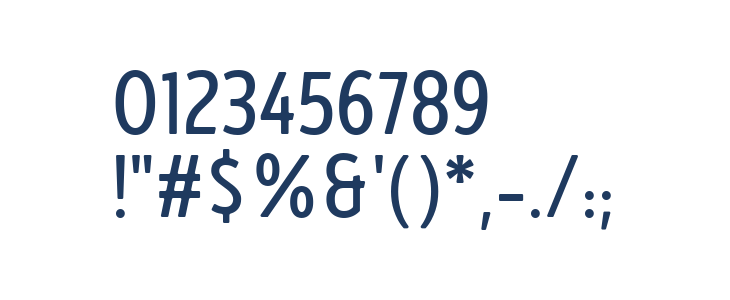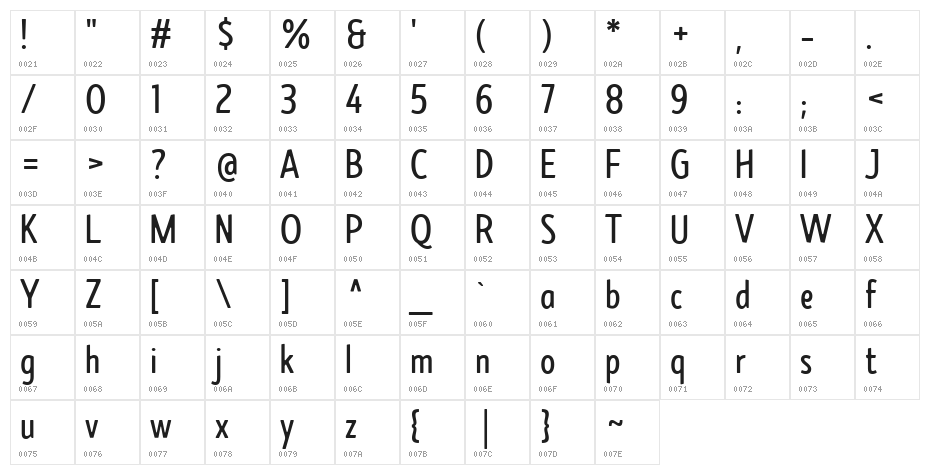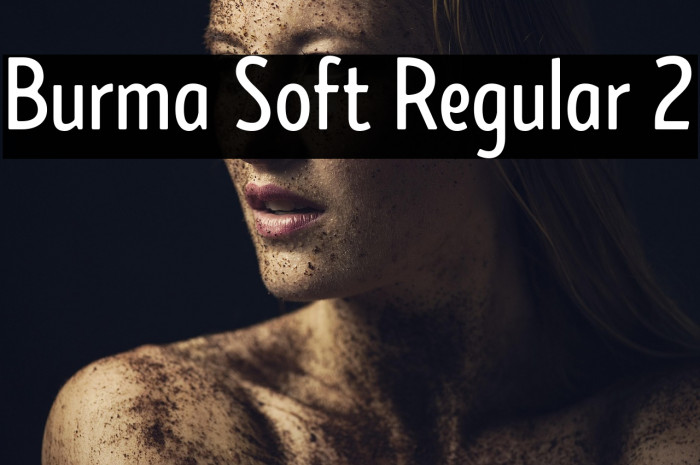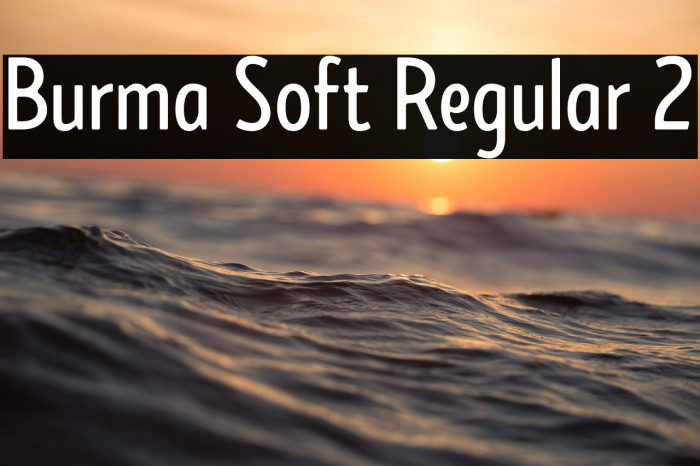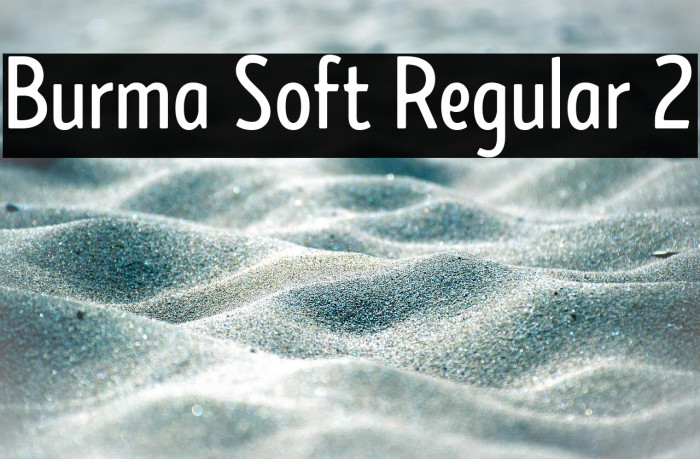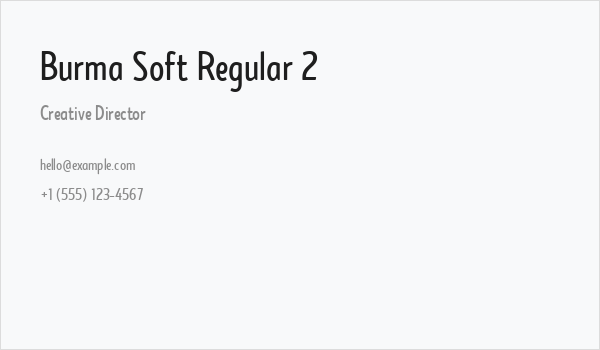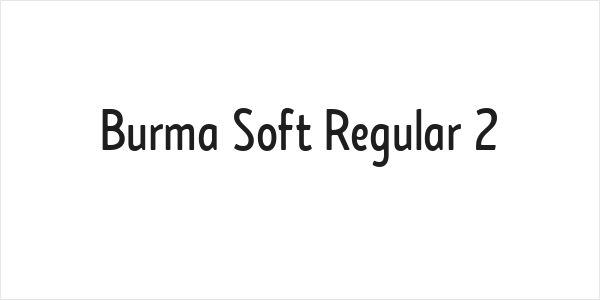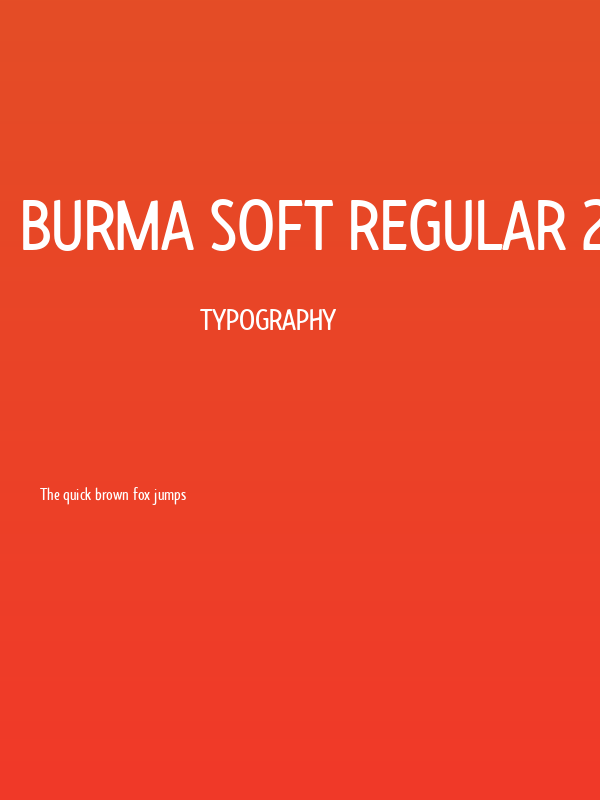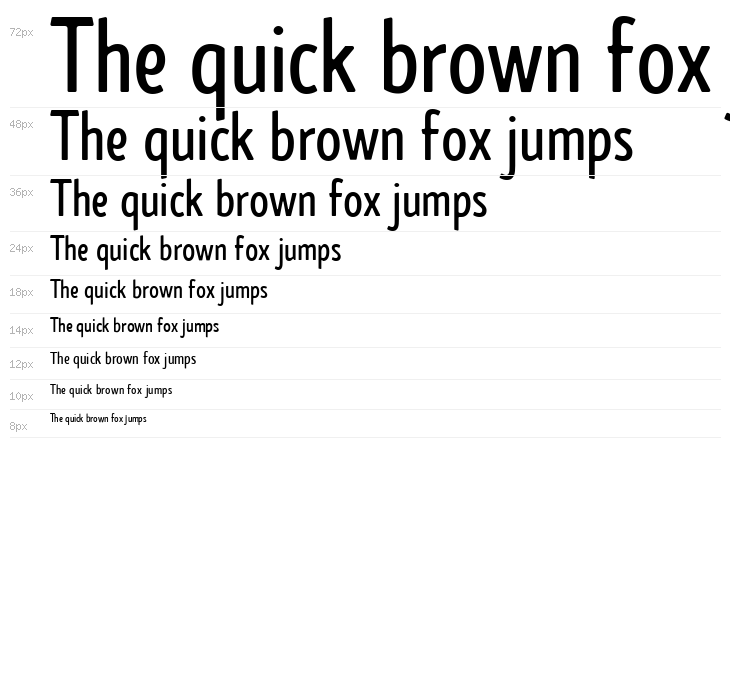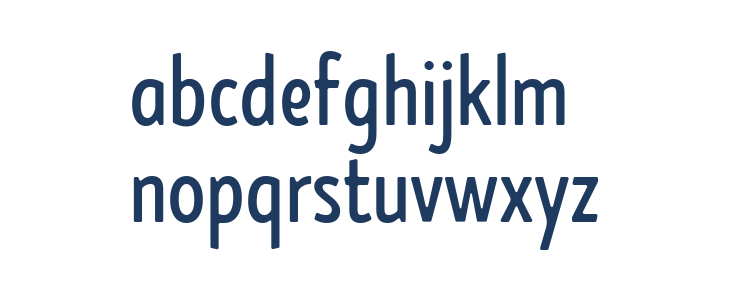
Burma Soft Regular 2 Font
Burma Soft Regular 2 Description
This typeface features a clean and modern sans-serif design with a slightly rounded appearance, giving it a friendly and approachable feel. The characters are evenly spaced, providing excellent readability. The uppercase letters are bold and prominent, while the lowercase letters maintain a consistent height, ensuring a balanced look. The numerals are clear and distinct, making them suitable for various applications. Special characters are well-defined, adding versatility to the font's usage. Overall, this font is ideal for projects that require a contemporary and professional touch.